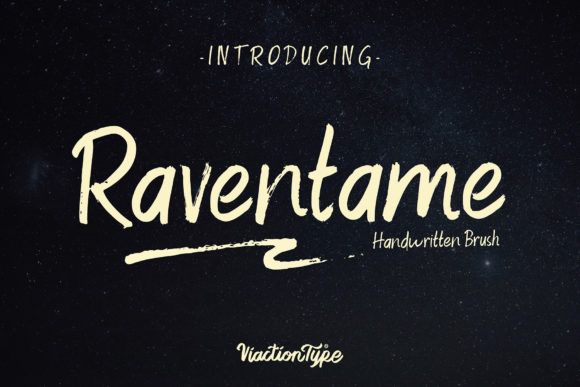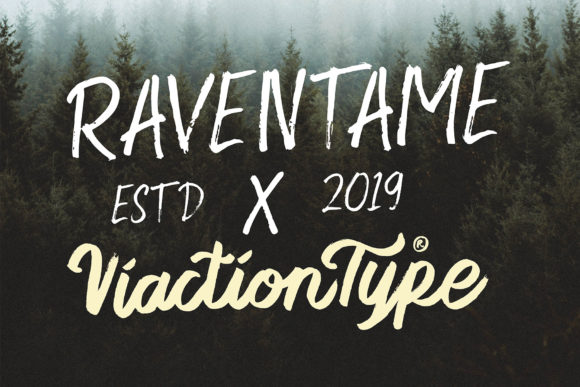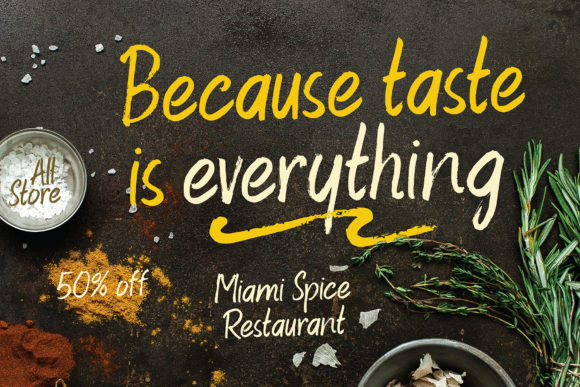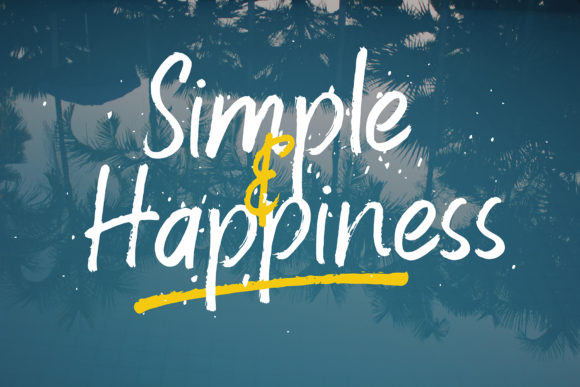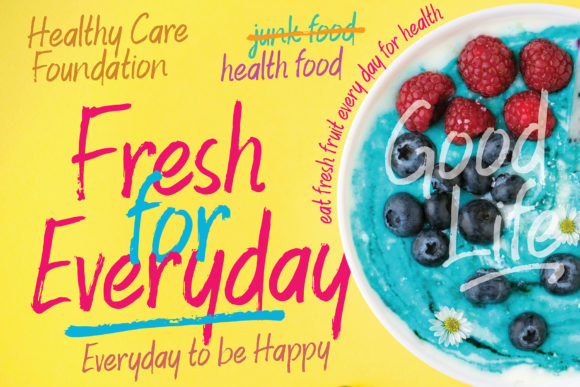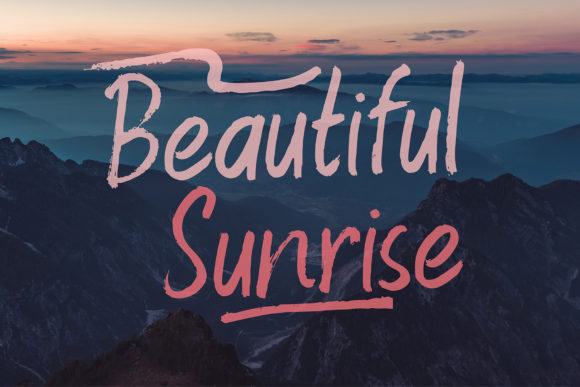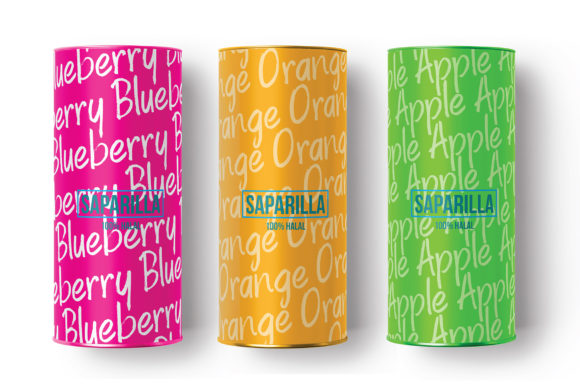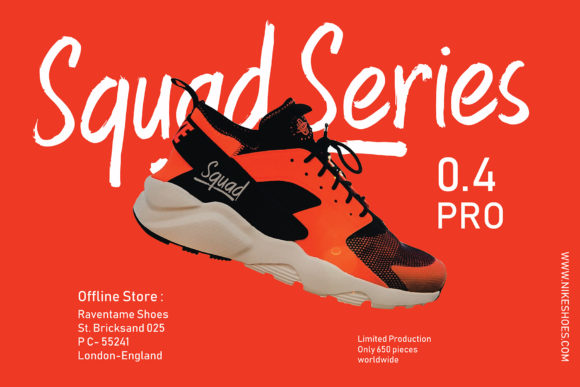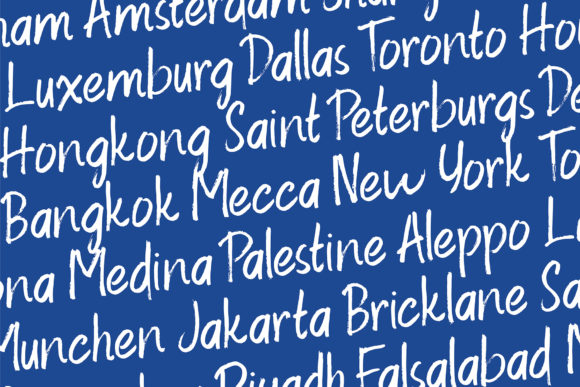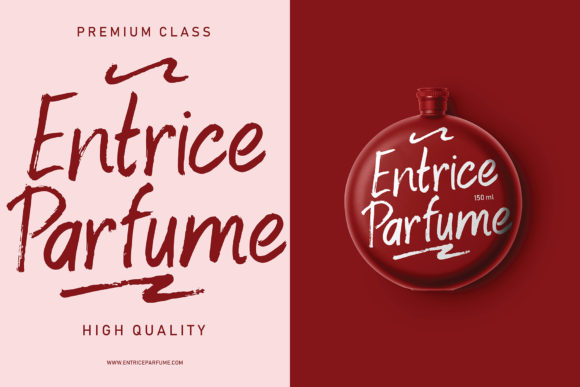
Raventame Font
About Raventame Font
The Raventame is a beautiful handwritten brush font. It has a natural writing style which is perfect for photography, magazines, quotes, business cards, logos, posters and much more!